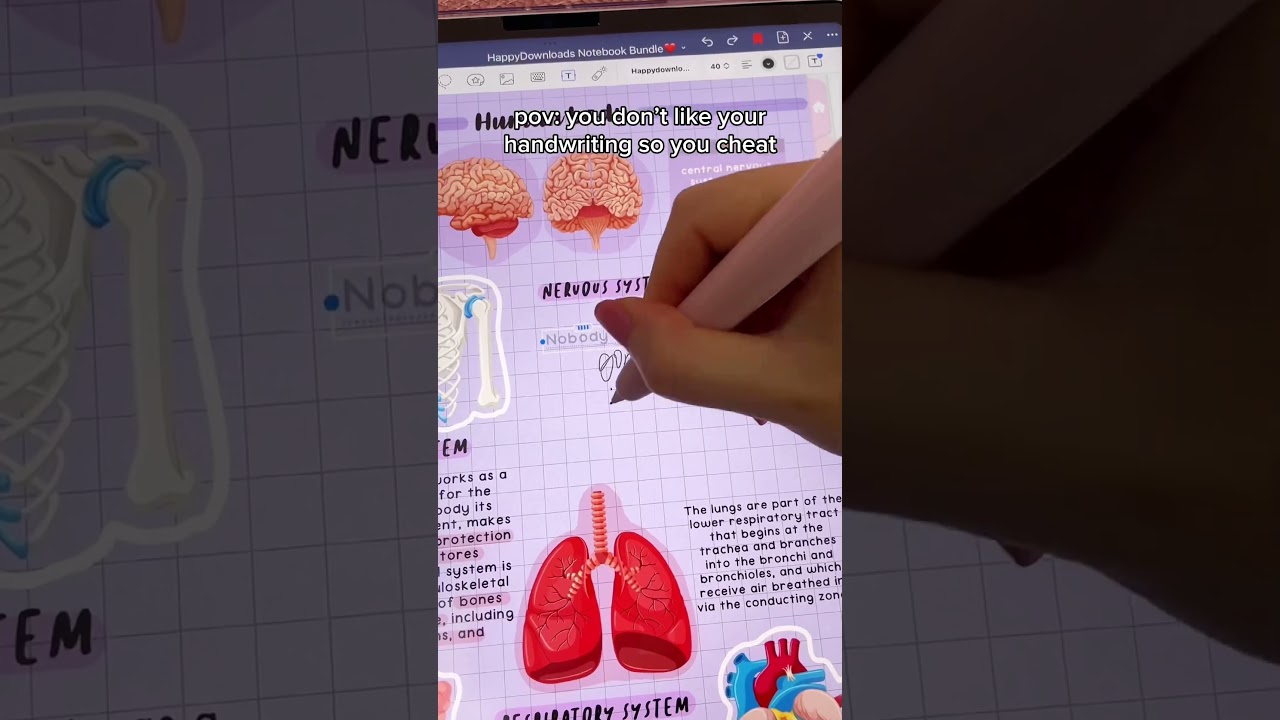
Cute Handwritten Font Font For Goodnotes Handwritten Note Cute Font
Cute Handwritten Font Font For Goodnotes Handwritten Note Cute Font Looking for cute handwriting fonts? click to find the best 3,555 free fonts in the cute handwriting style. every font is free to download!. Discover free goodnotes handwritten fonts to elevate your note taking experience. add a personal touch with unique, stylish fonts for every mood and style.
Cute Handwritten Font Handwriting Sheets Cute Font Looking for the best fonts for goodnotes? you can find good looking handwritten fonts from google fonts and dafonts. both have the option to filter by style. make sure you check the license before using a free font. a lot of free font creators only allow you to use their font for personal use. Discover our curated collection of handwriting fonts designed for goodnotes. enhance your digital notes with beautiful, legible fonts that bring your content to life. ideal for planners, journals, and more. Find and save ideas about free fonts for goodnotes on pinterest. The pretty note is a cute handwriting font that is perfect for note taking, social media, invitations, and more! the characters included are as the picture shows. commercial use is allowed, no credit is needed.
Cute Handwritten Font Font For Goodnotes Handwritten Note Cute Font Find and save ideas about free fonts for goodnotes on pinterest. The pretty note is a cute handwriting font that is perfect for note taking, social media, invitations, and more! the characters included are as the picture shows. commercial use is allowed, no credit is needed. This text includes letters, numbers 123, and punctuation! a friendly and slightly messy handwritten font, ideal for informal notes and spontaneous thoughts. Explore the best handwriting fonts for goodnotes. perfect for journaling, planning, and making your notes look naturally handwritten. Favorite notebook is a cute handwriting font. this font is perfect for cricut projects, quotes, goodnotes, planners, handwritten notes, logos, teachers and more!. While i typically hand write with apple pencil, i sometimes use handwriting style fonts to make my notes neater and more consistent but still cute! keep reading to find out why i use a digital bullet journal, how to install fonts on ipad, and the 10 cute digital bullet journal fonts i love.